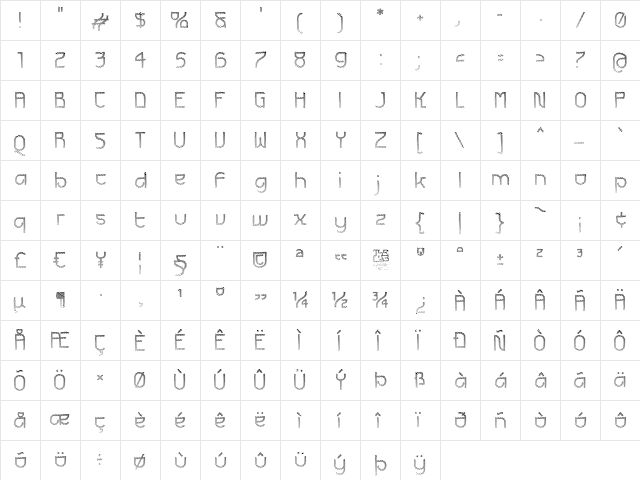
Futurex Striped Regular
| Designer | G Meade, PhoenixPhonts and Apostrophic Laboratories |
Design Context for Futurex Striped Typeface
Futurex Striped channels digital-age aesthetics through its sharp, structured letterforms — ideal for brands that want to signal innovation.